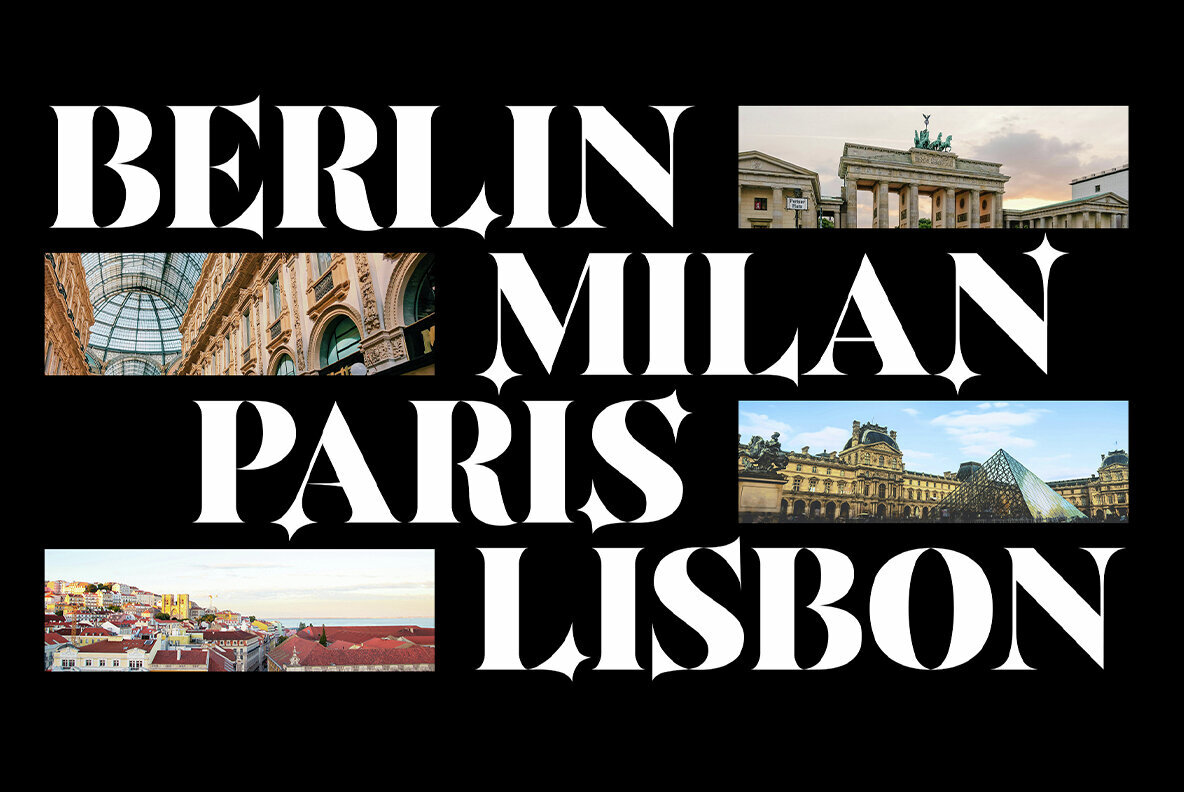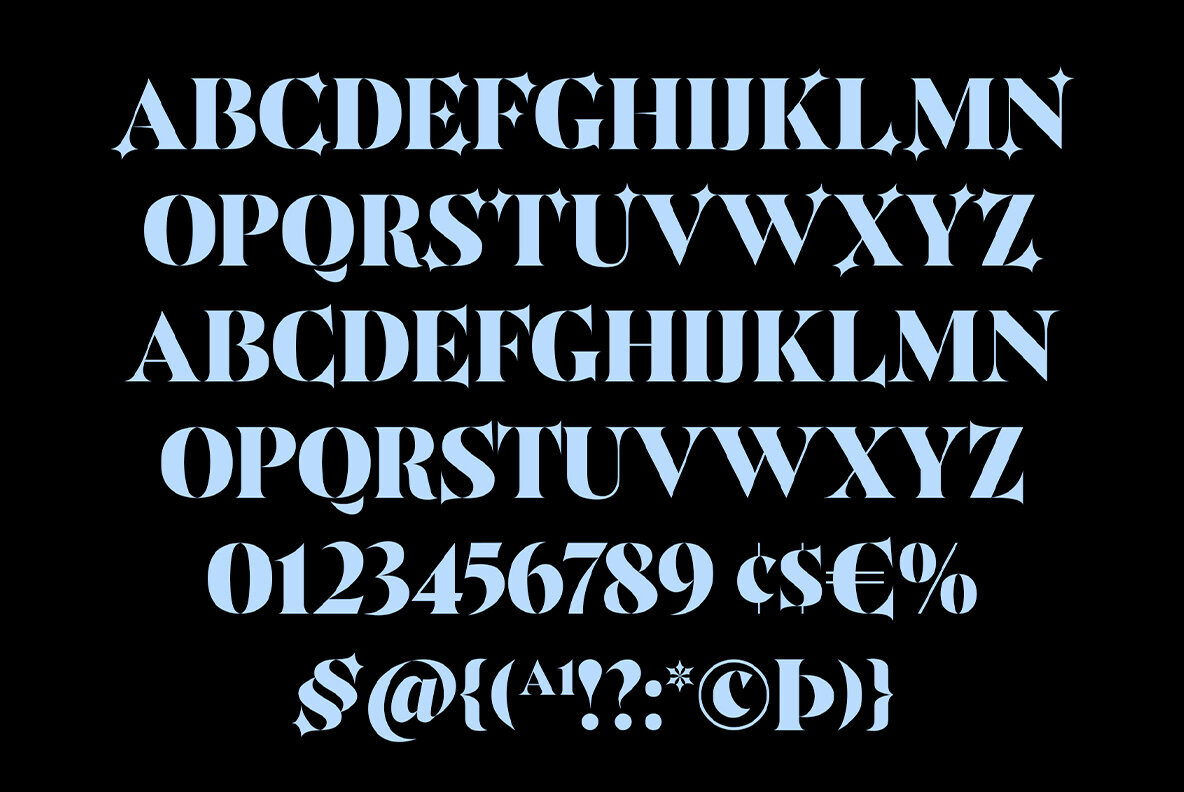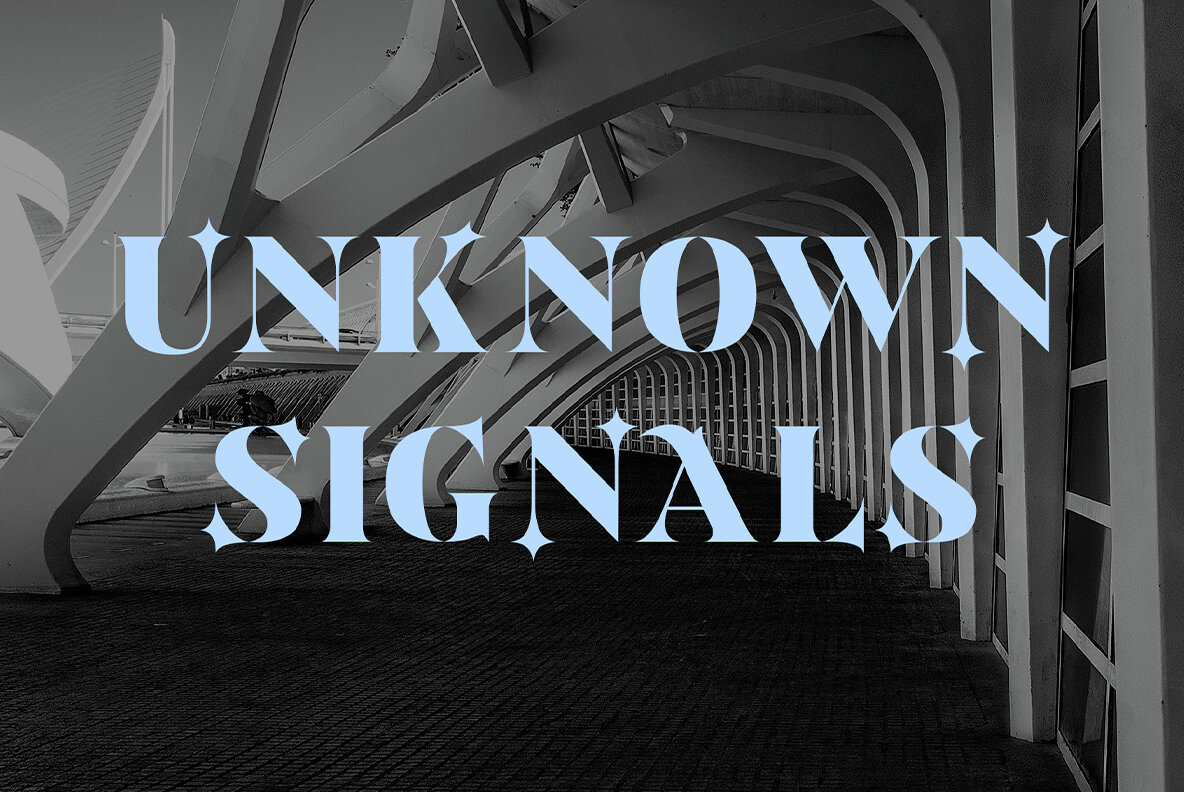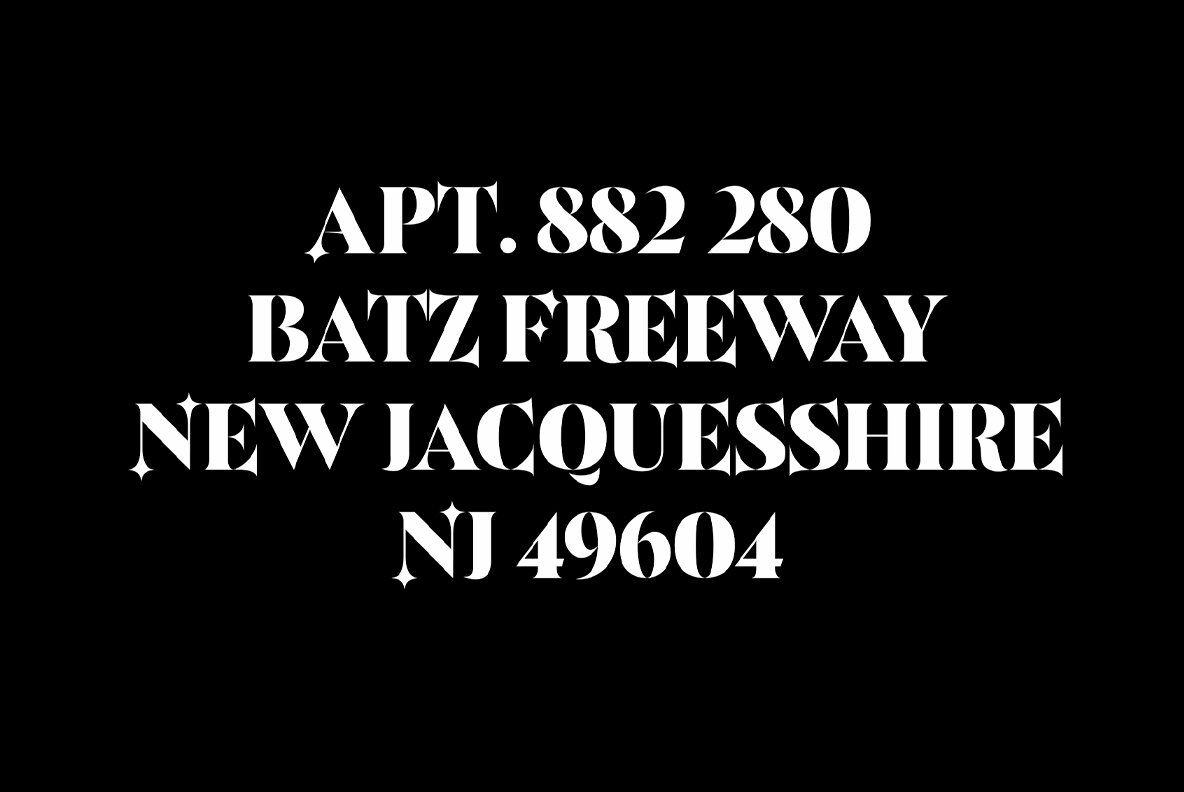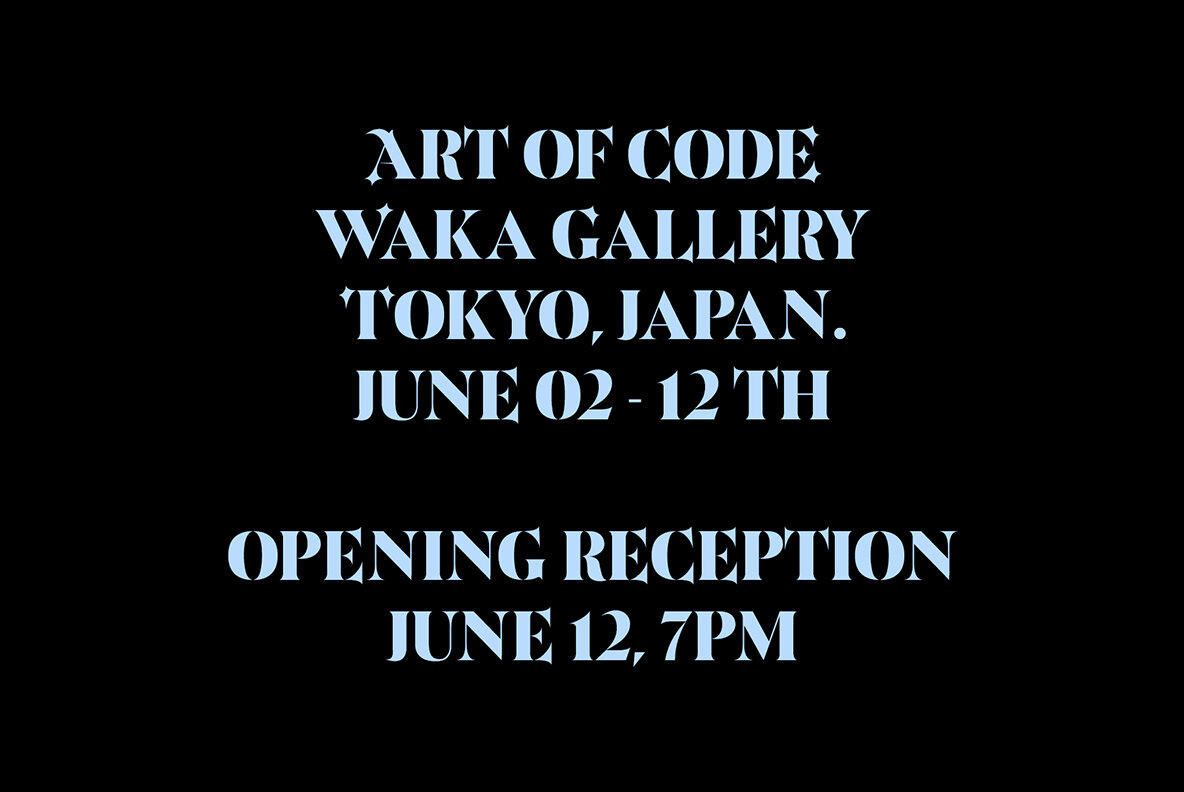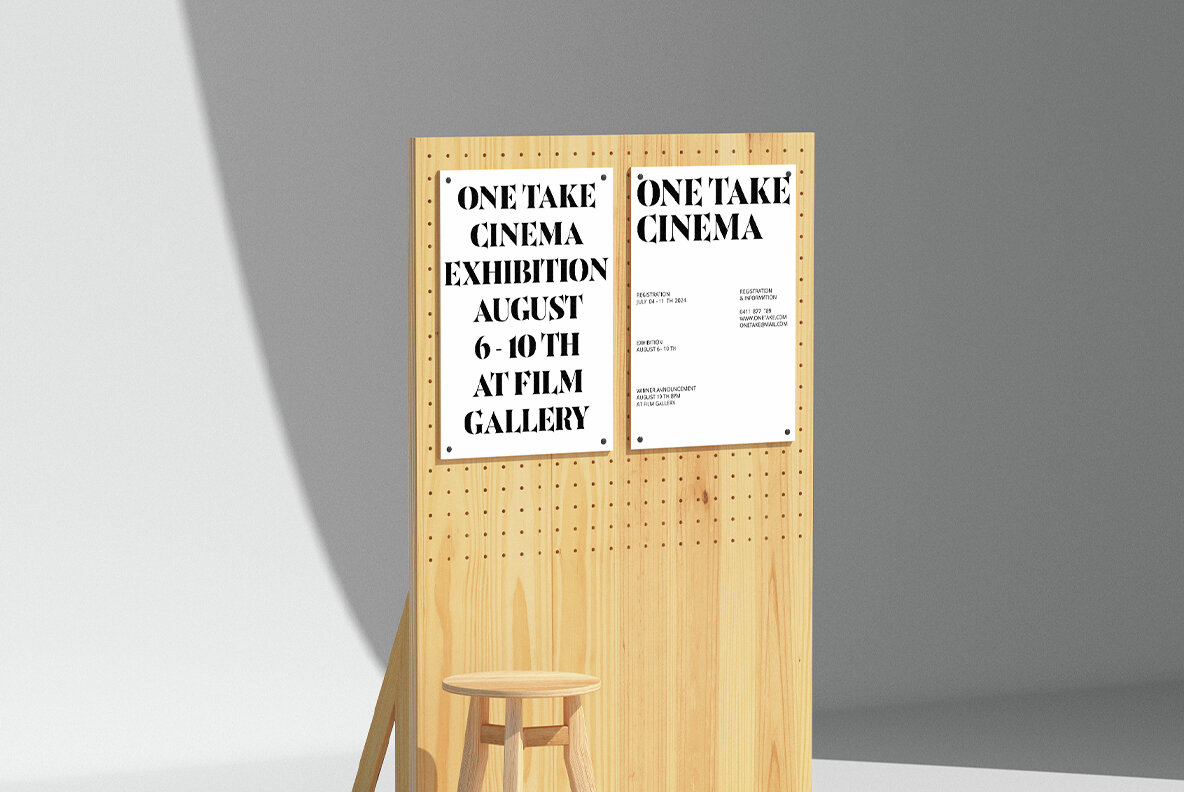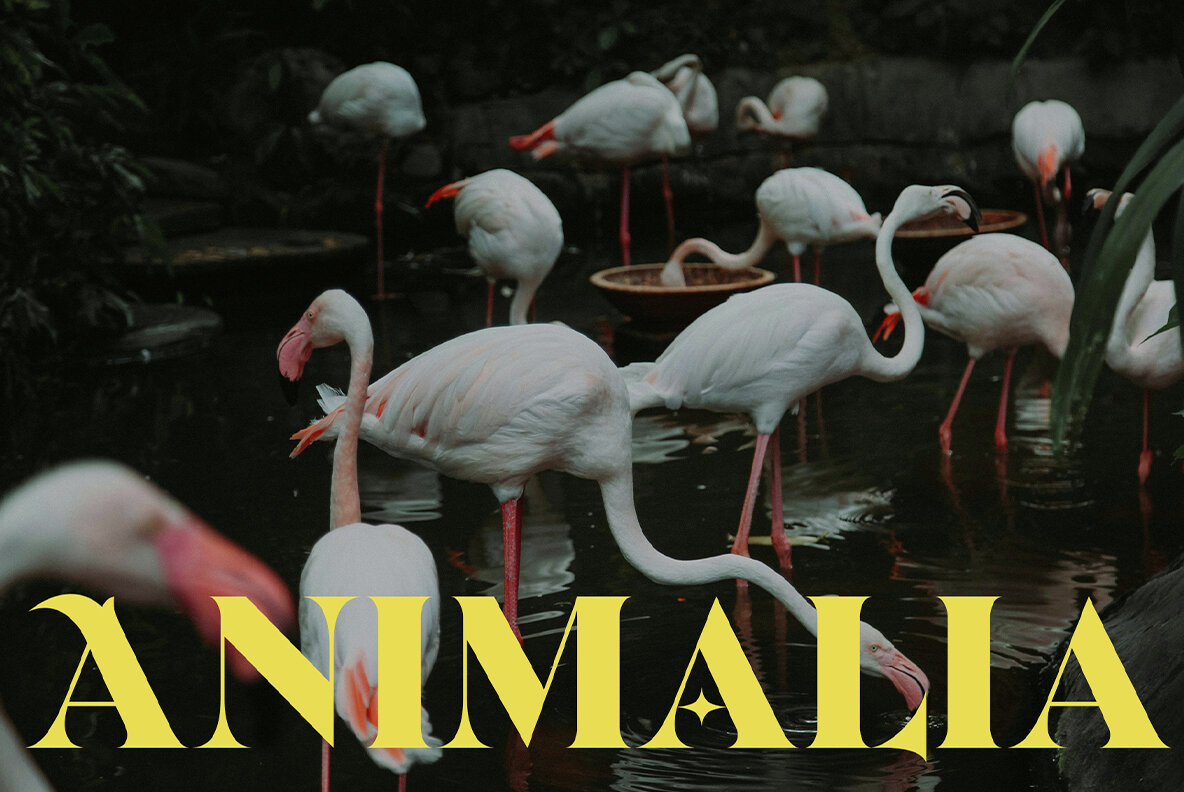
ED Ontika Font
ED Ontika Regular
Ontika is a bold serif display font characterized by sharp edges and a bold appearance, making it easy to read and versatile for combining with other fonts. The font features capital characters and includes OpenType features such as stylistic sets, ligatures, and multi-language support. Perfect for creative projects like logotypes, printed quotes, invitations, cards, headers, letterheads, apparel, web design, magazines, and books. Designed by Eko Setiawan.